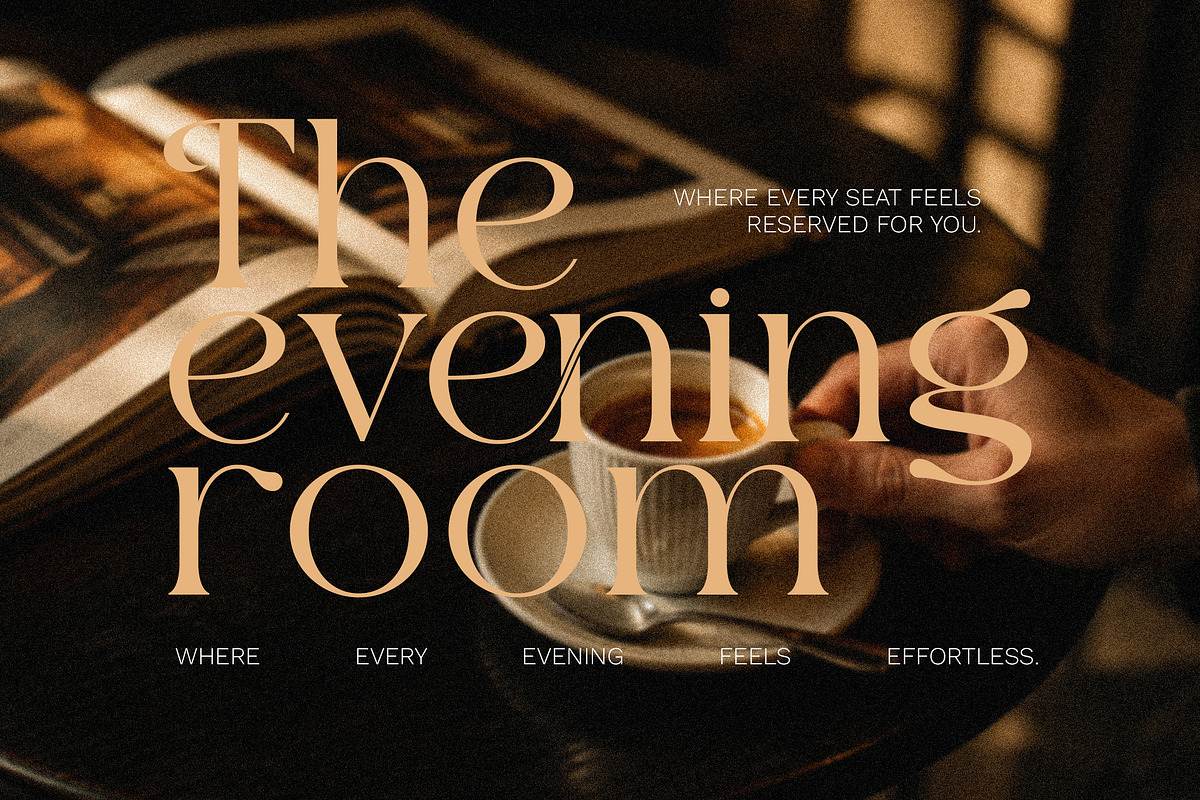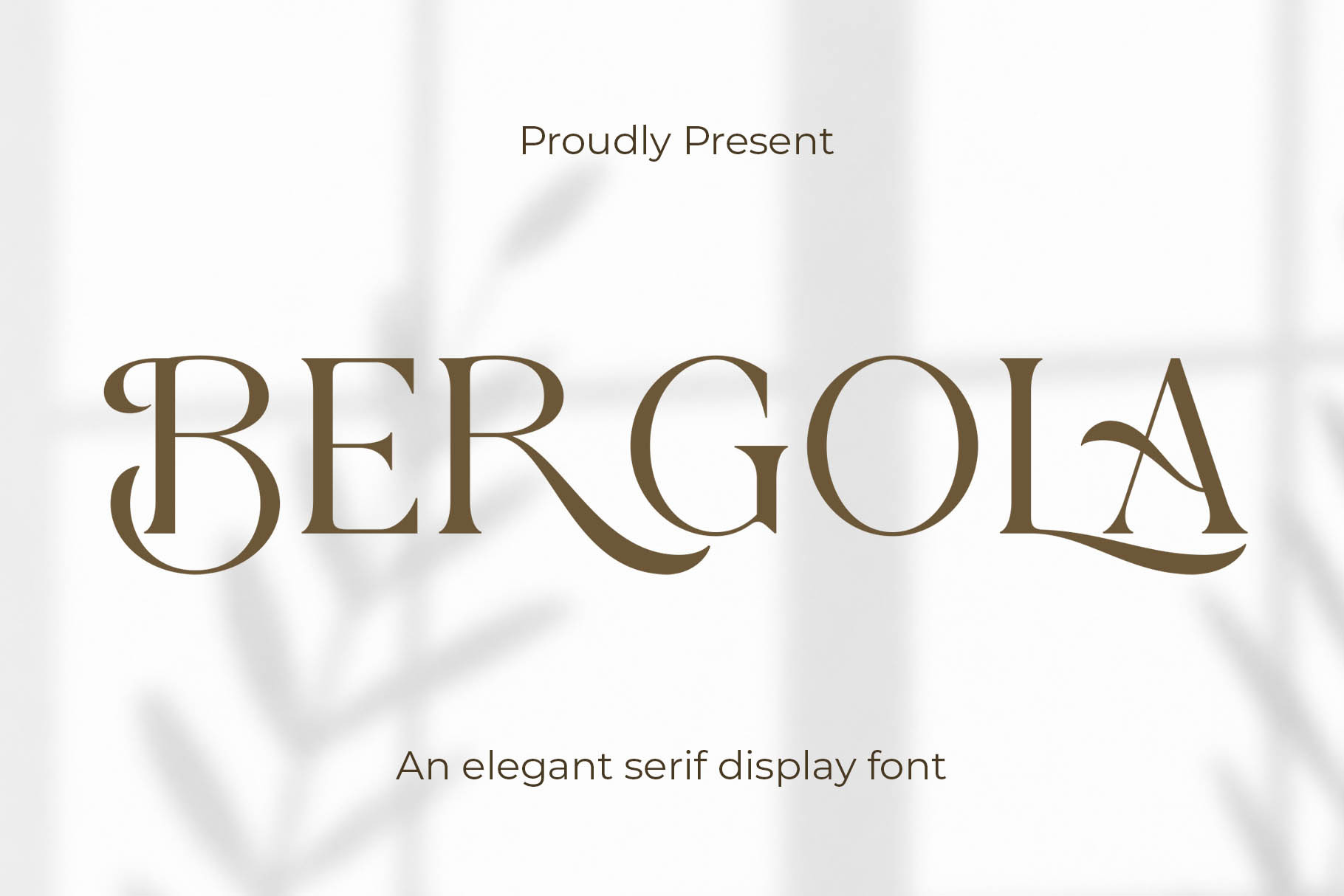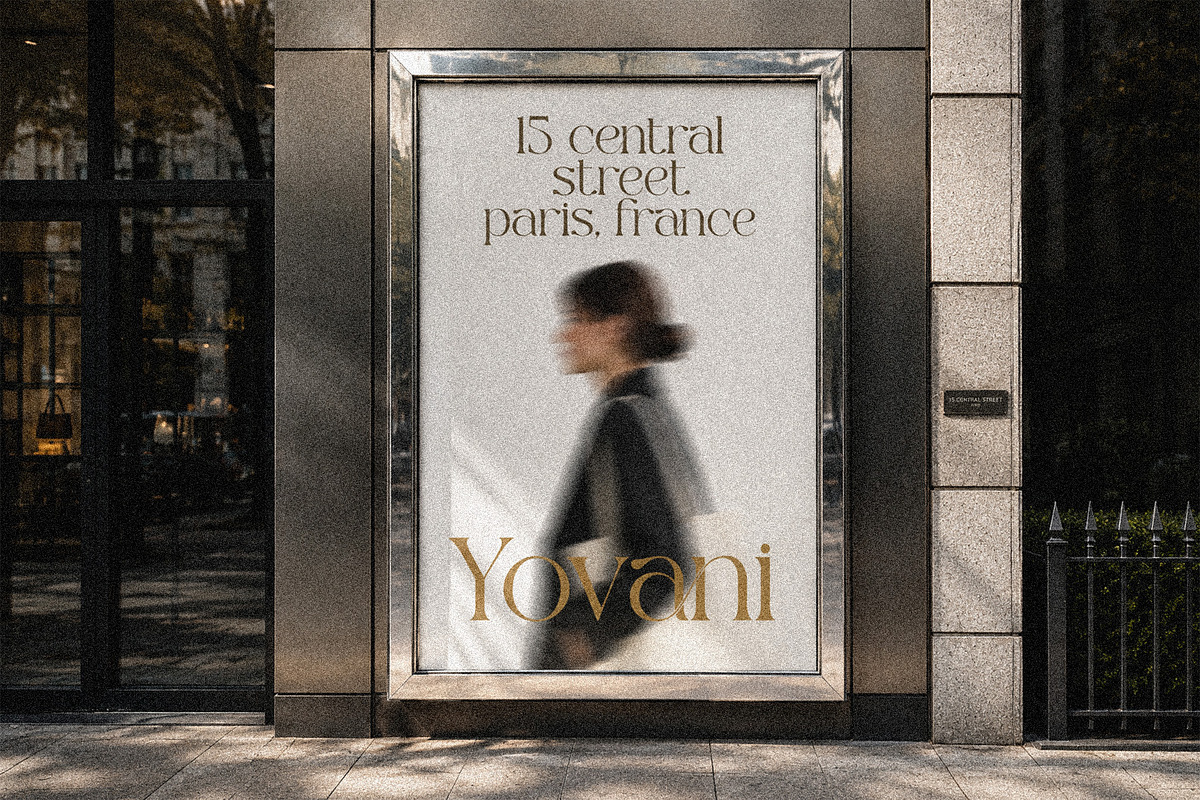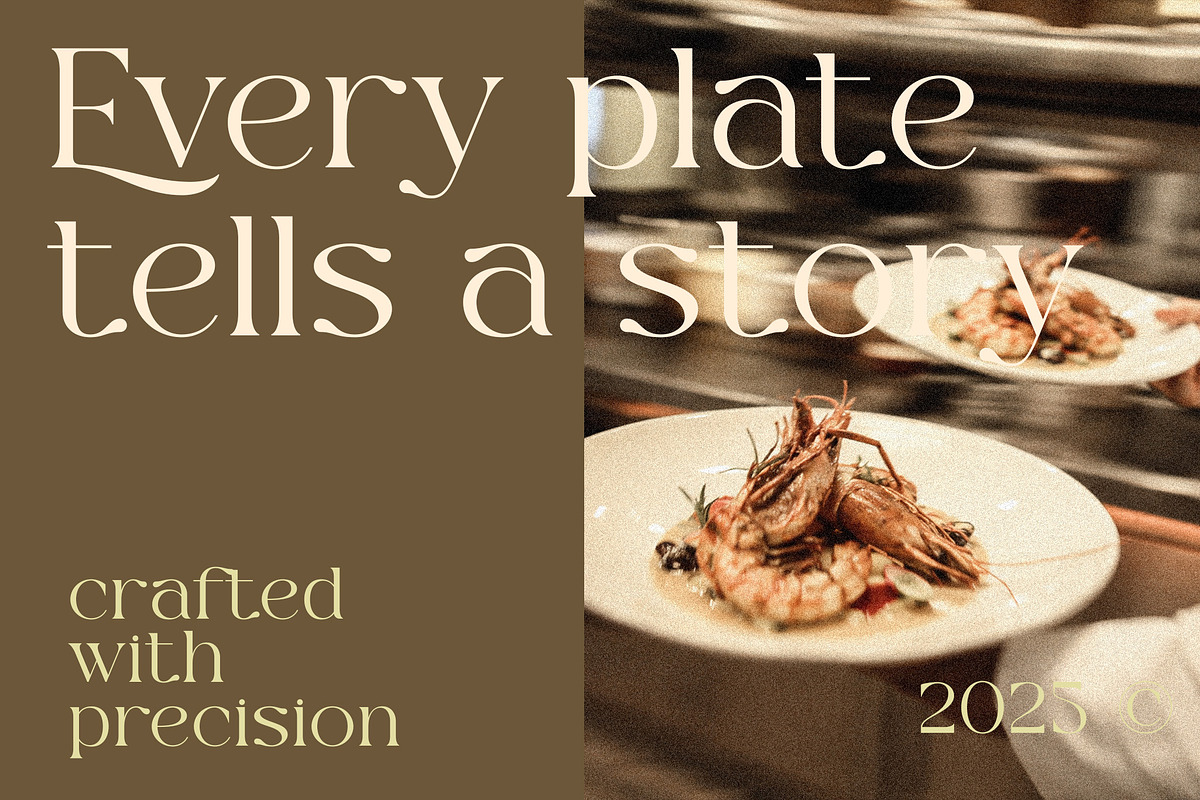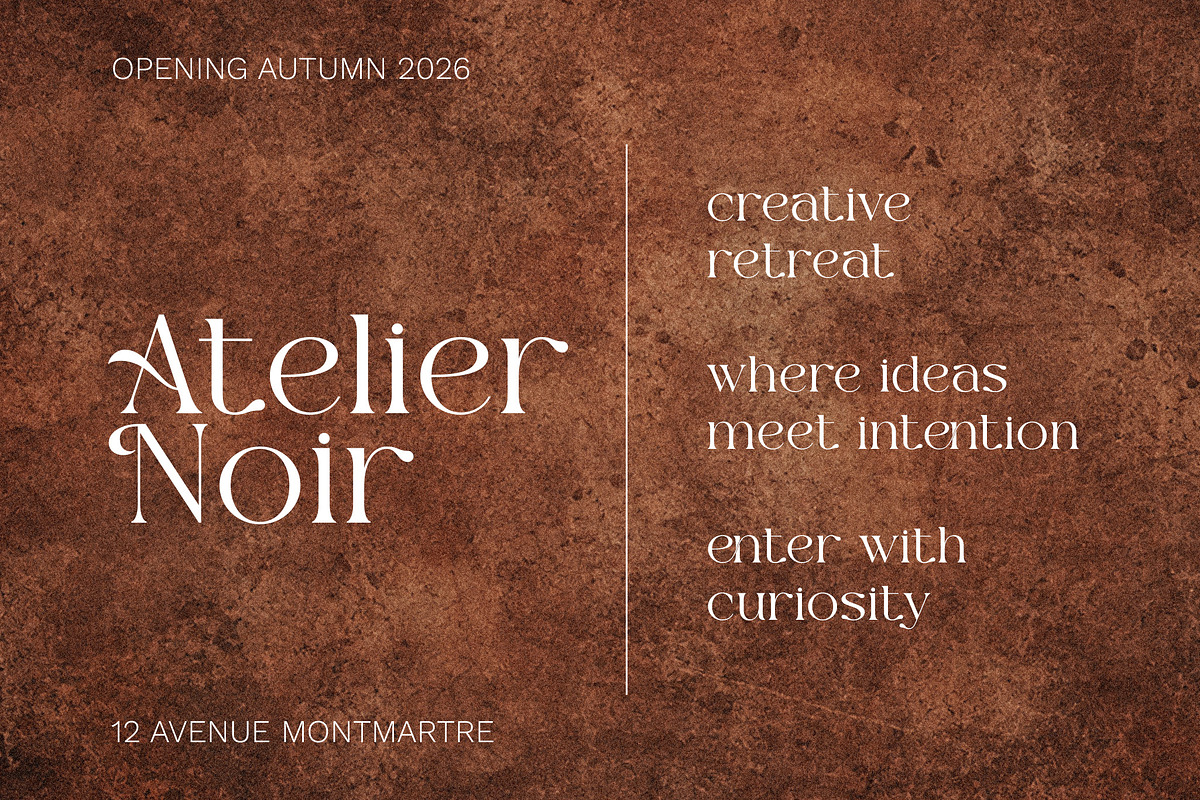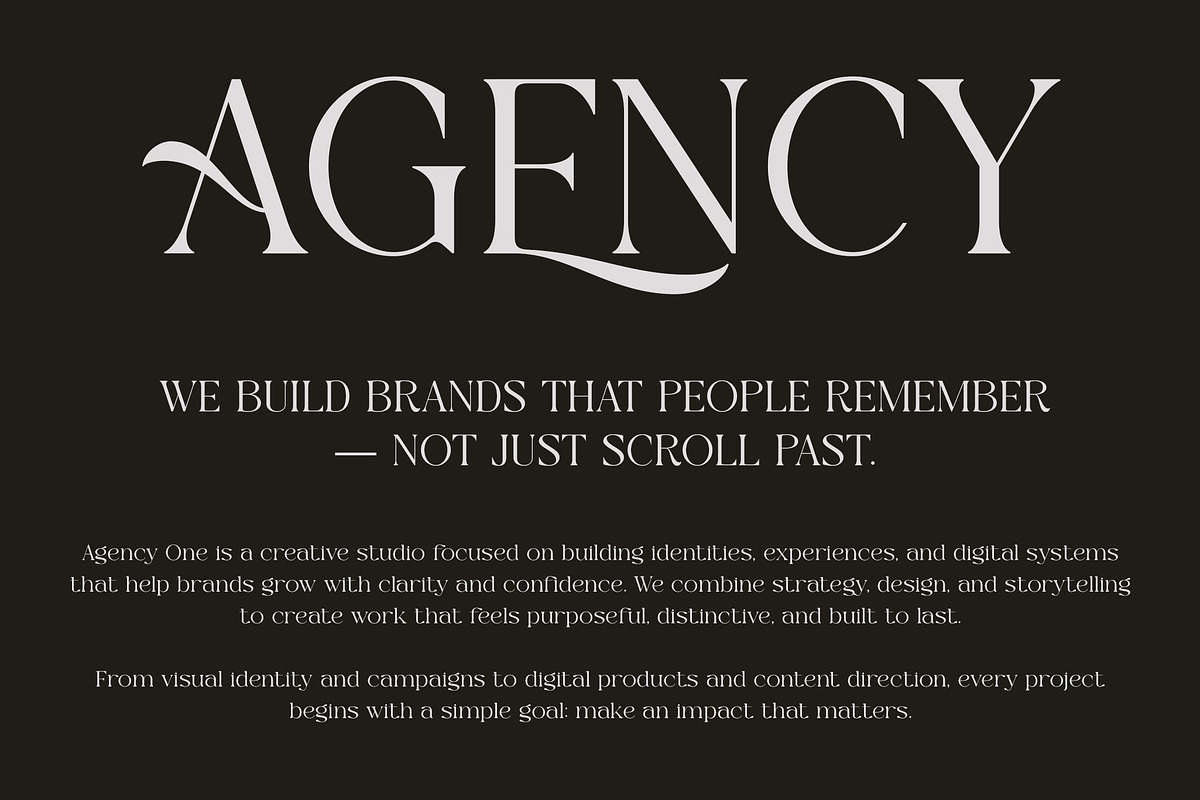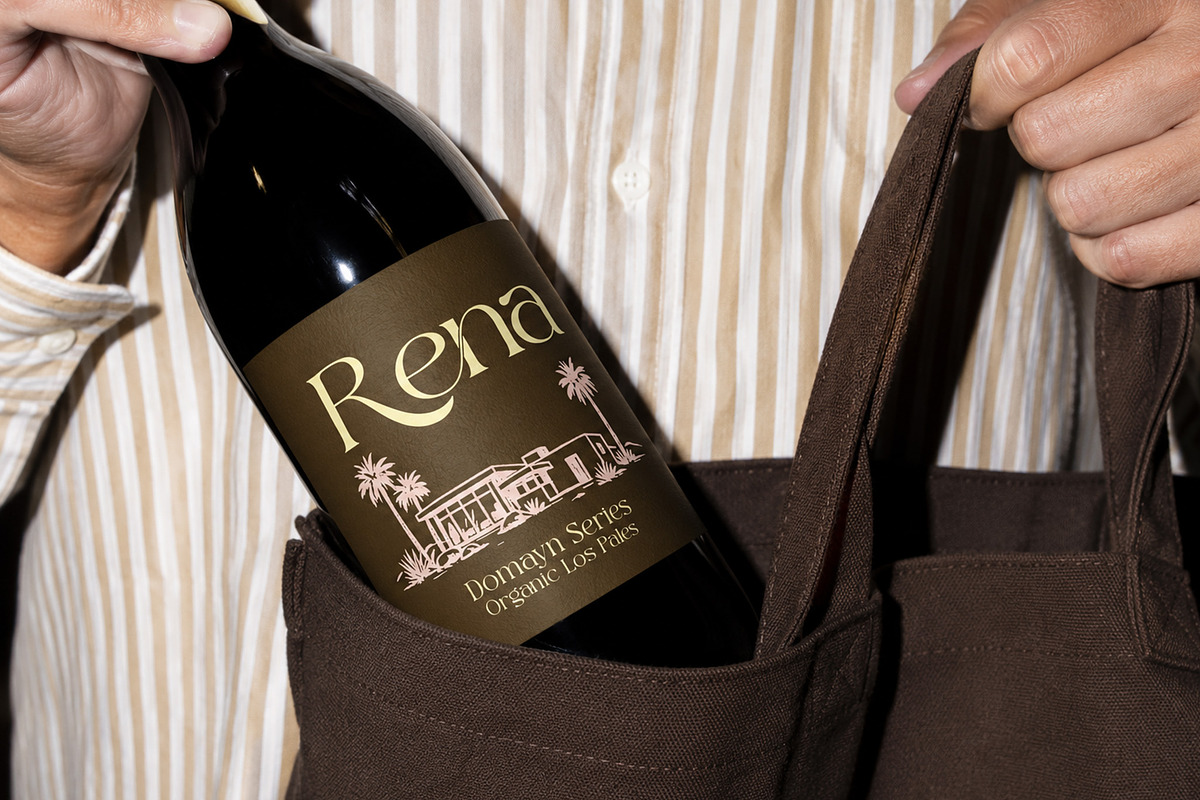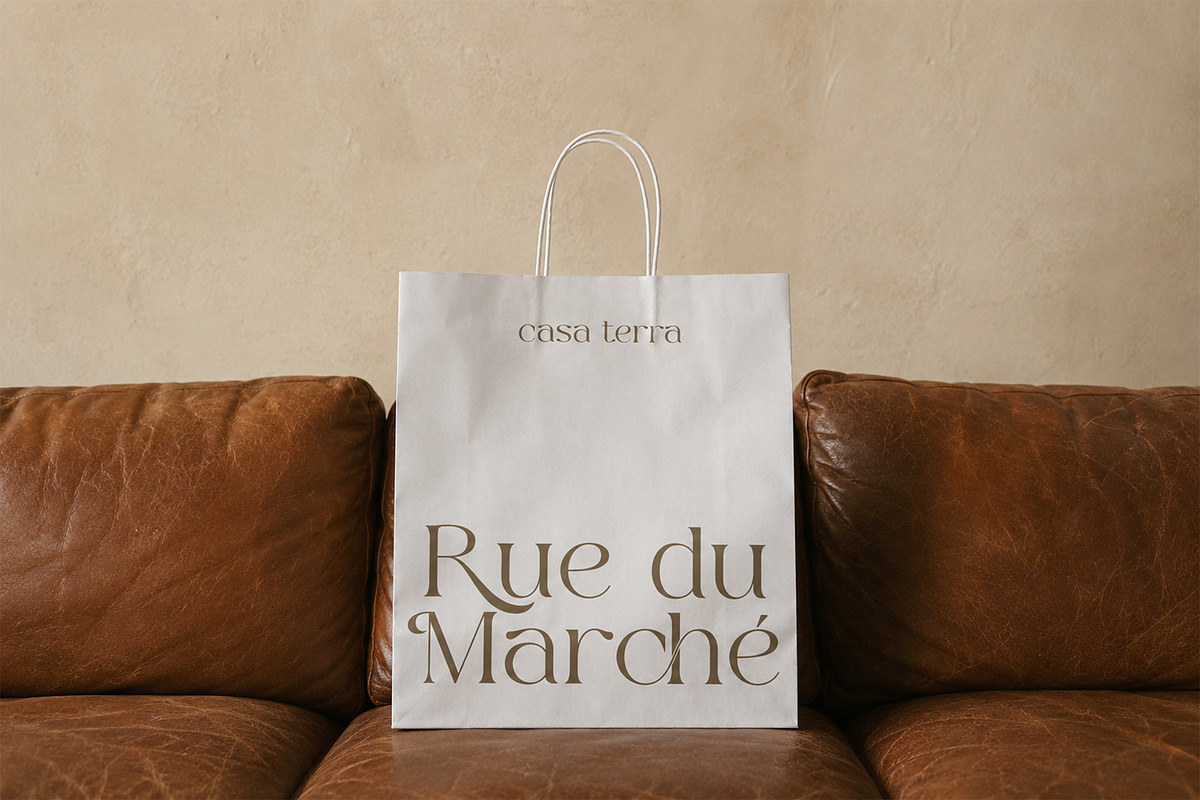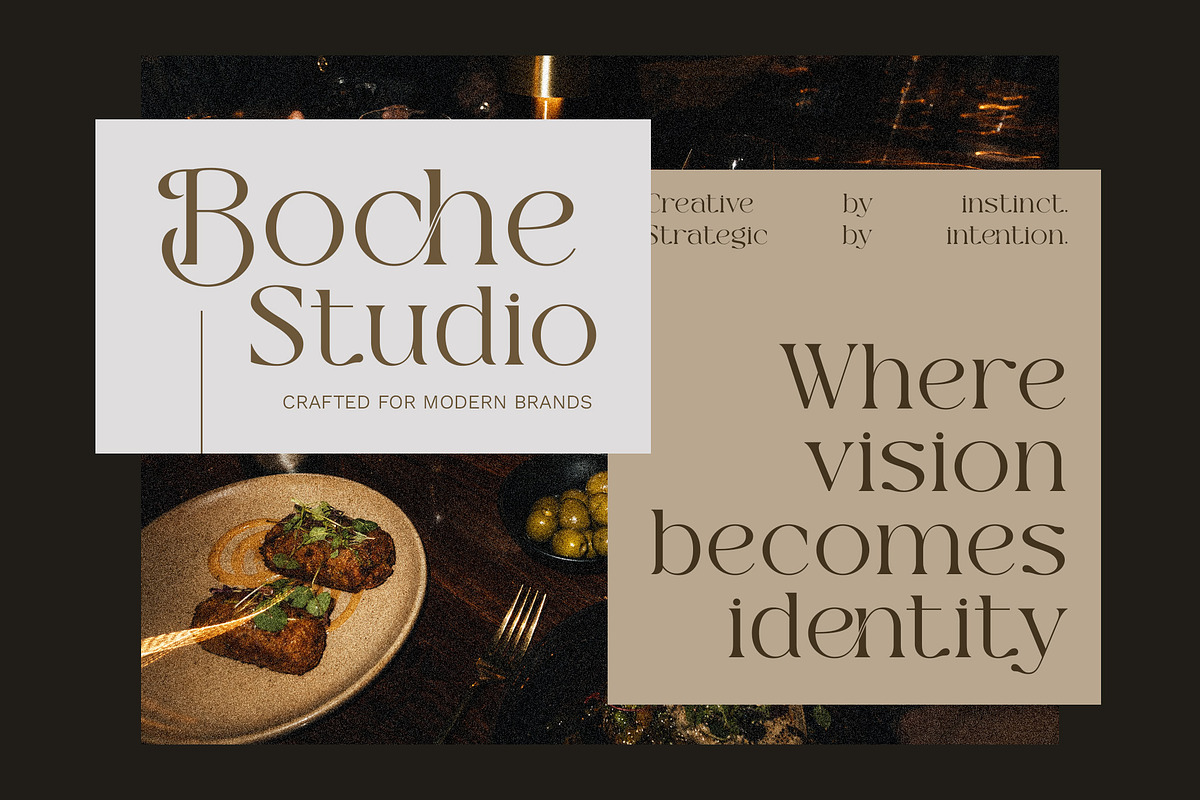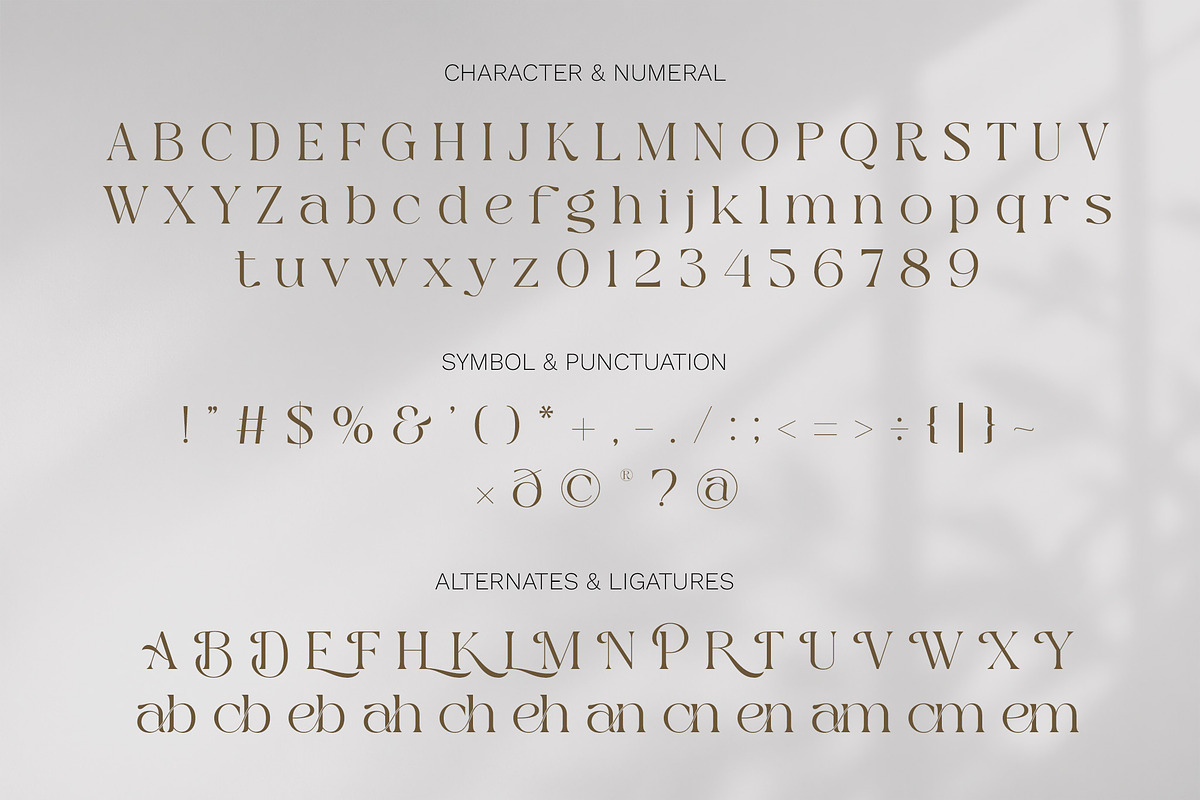
Bergola - Elegant Serif Display Font
Introducing Bergola the elegant, beautiful, and modern Serif. With its modern and minimalist look, Bergola brings a luxurious, classy, and clean style to your projects such as websites, modern logos, brand identities, social media quotes, wedding stationery, magazines, and more!
Bergola features unique and classy capital letters A to Z and also comes with unique alternates and ligatures making Bergola a beautiful font that can be customized for various projects and jobs you want.
FEATURE:
\- Uppercase and lowercase letters
\- Multilingual Characters
\- Numbers & punctuation
\- ligatures & Alternates